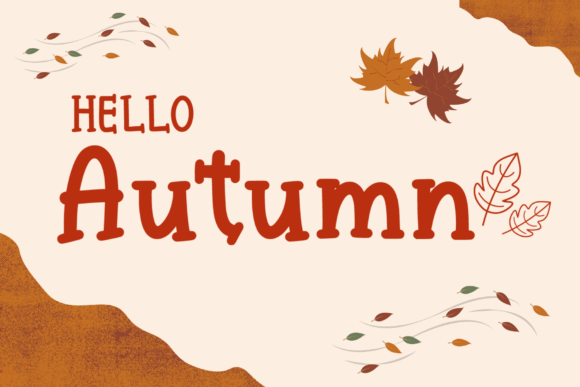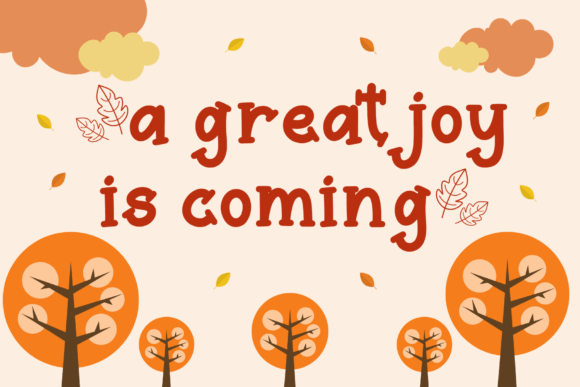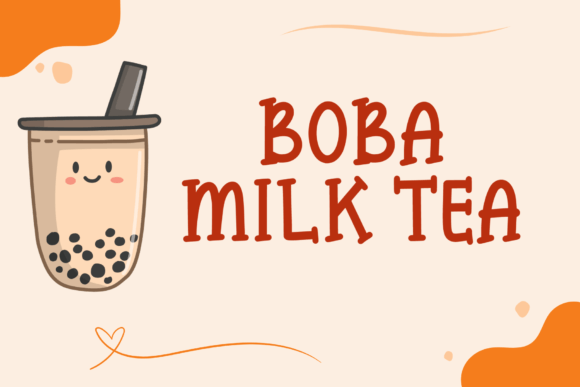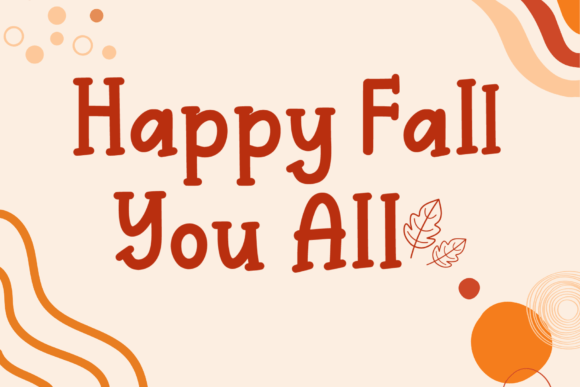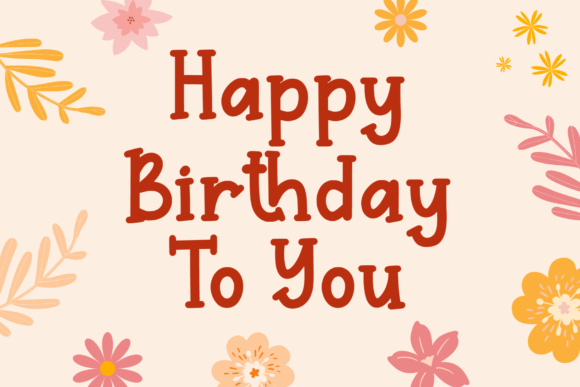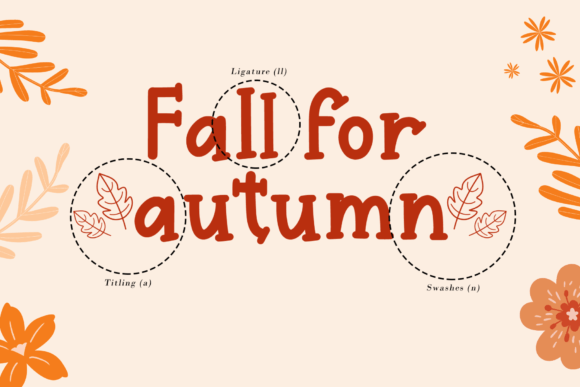
Get Ready to Fall in Love with Awesome Autumn Font
As the leaves change colors and the crisp air sets in, I find myself in the midst of a creative frenzy. There’s something about the cozy atmosphere of autumn that sparks my imagination and inspires me to get crafty. This year, I’ve been experimenting with various font styles to capture the essence of the season, and I’m excited to share my latest discovery – the Awesome Autumn Font.
This charming hand-lettered font is a game-changer for designers looking to add a playful touch to their work. Whether you’re creating social media graphics, crafty projects, or birthday invitations, the Awesome Autumn Font is sure to elevate your designs and make them stand out. With its extensive character set and basic punctuation marks, this font is a valuable addition to any designer’s toolkit.
Awesome Autumn Font Key Features
- Unique Characteristics: Awesome Autumn Font features a unique blend of rustic and elegant elements, making it perfect for fall-themed designs, invitations, and other seasonal projects.
- Character Set: The font includes a comprehensive set of characters, including uppercase and lowercase letters, numbers, punctuation marks, and special characters.
- Font Styles: Awesome Autumn Font includes 3 different font styles: Regular, Italic, and Bold, providing users with flexibility and creativity in their designs.
Designer Review: Awesome Autumn Font
Overall, I was excited to dive into the Awesome Autumn Font, but my experience was a mix of good and not-so-good.
- The font has a lovely, cozy feel to it, perfect for autumn-themed designs.
- The bold weight is nice and thick, making it great for headings and titles.
- The font is well-suited for body text, especially for paragraphs and captions.
- The regular weight could be a bit more readable at smaller font sizes.
- The font doesn’t have a lot of variation in terms of style, which might limit its use in more complex designs.
- The italic and bold-italic styles could be improved for better readability.
The Awesome Autumn Font is a nice addition to any designer’s toolkit, especially for projects that require a seasonal feel. While it has its limitations, the font is well-suited for basic designs and can be a great choice for those looking for a simple, autumn-inspired font.
The Awesome Autumn Font includes a comprehensive character set that supports Latin, Greek, and Cyrillic alphabets. It also includes a range of punctuation and symbol characters. The font is designed to work seamlessly with a variety of languages and applications.